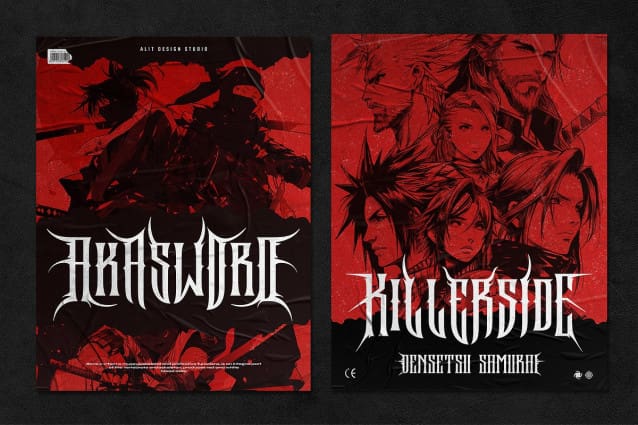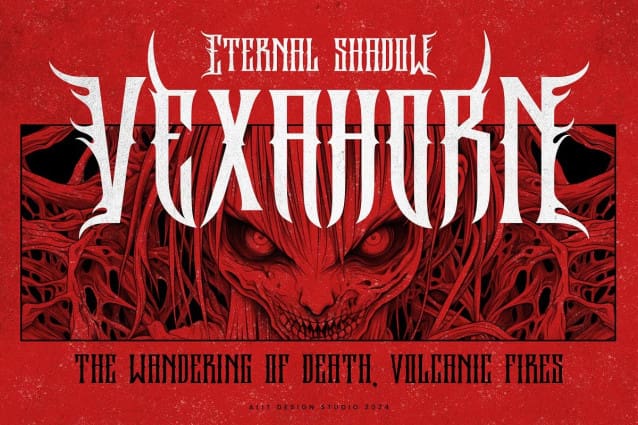
Rockakura Font
Rockakura Font, a bold and menacing font inspired by the raw intensity of metal culture. Forged with cruel thorns that evoke the hellish depths and courage to stand against the tide, Rockakura is perfect for those who dare to push boundaries in design. Whether you’re creating logos, album covers, posters, or any project that screams rebellion and power, this typeface delivers a visual punch like no other.